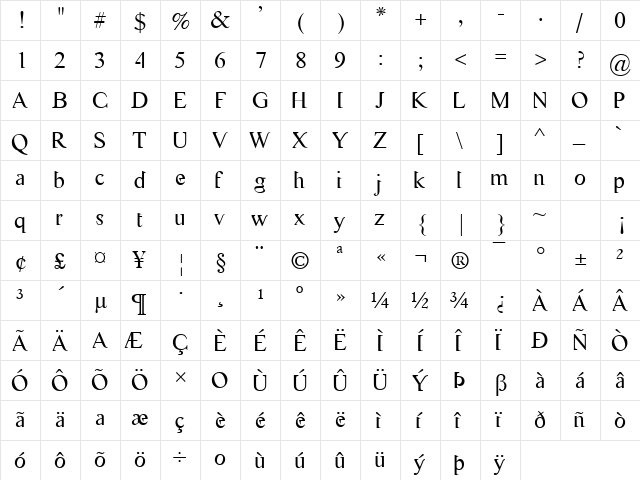
Flash Genocide Regular
Design Context for Flash Genocide Typeface
Flash Genocide takes a measured approach to typography — its balanced proportions and neutral character make it a reliable workhorse for both digital and print work.